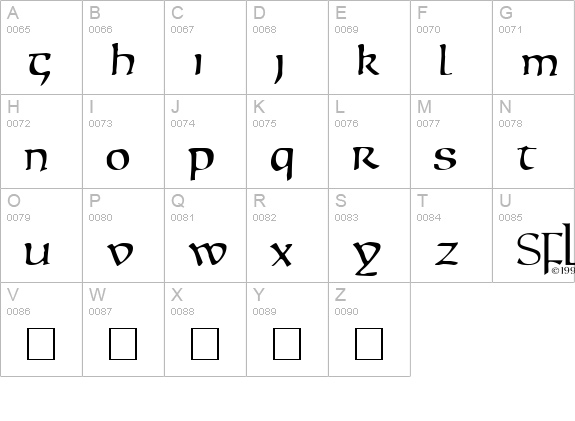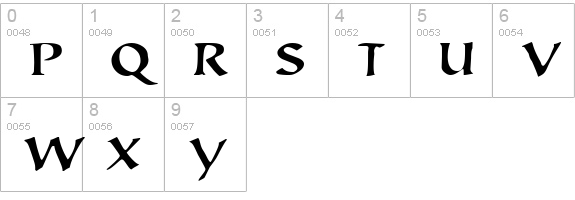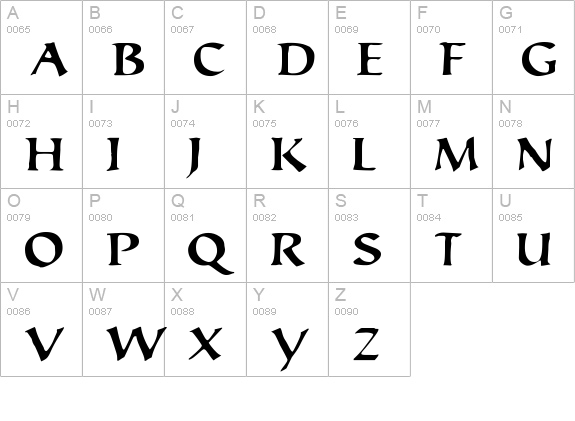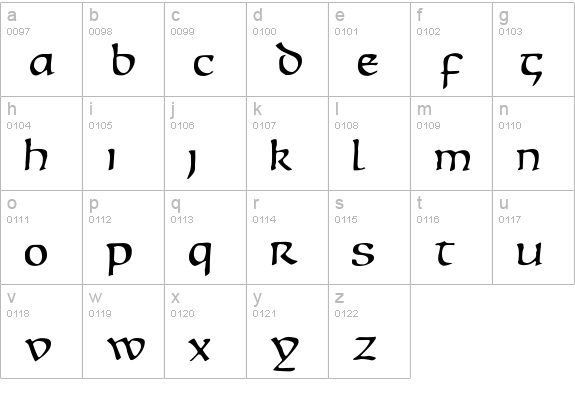
Ravenna Font Details
Ravenna font is a stunningly elegant typeface that effortlessly captures attention with its timeless beauty and refined design. Its graceful curves and delicate strokes lend a sense of sophistication to any project, making it perfect for everything from branding materials to wedding invitations. What sets Ravenna font apart is not only its exquisite aesthetic, but also the fact that it is available for free. Yes, you read that right – this remarkable font can be downloaded at absolutely no cost from FontsMarket.com. This means that regardless of your budget or project size, you can add a touch of elegance and class to your designs without breaking the bank. With its versatile nature, Ravenna font can be used in a myriad of creative ways. Its legibility and distinct character make it ideal for both display purposes and body text, offering endless possibilities for designers, typographers, and creatives alike. Whether you're working on a logo, website, or print materials, Ravenna font is sure to make a lasting impression. Its timeless charm combined with its free availability makes it a must-have resource for anyone in need of a sophisticated and high-quality typeface. So, why wait? Take advantage of this incredible opportunity to enhance your designs with Ravenna font. Head over to FontsMarket.com and download it for free today. Unleash your creativity and let Ravenna font elevate your projects to new heights of elegance and professionalism.